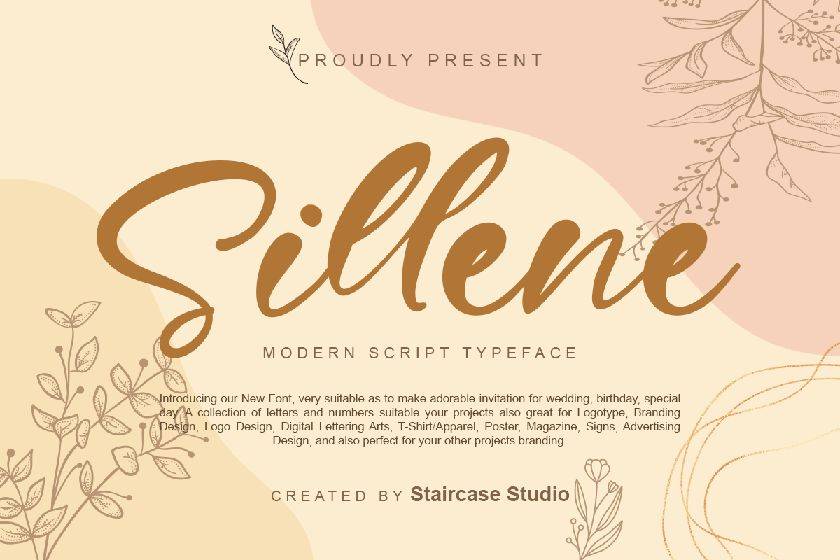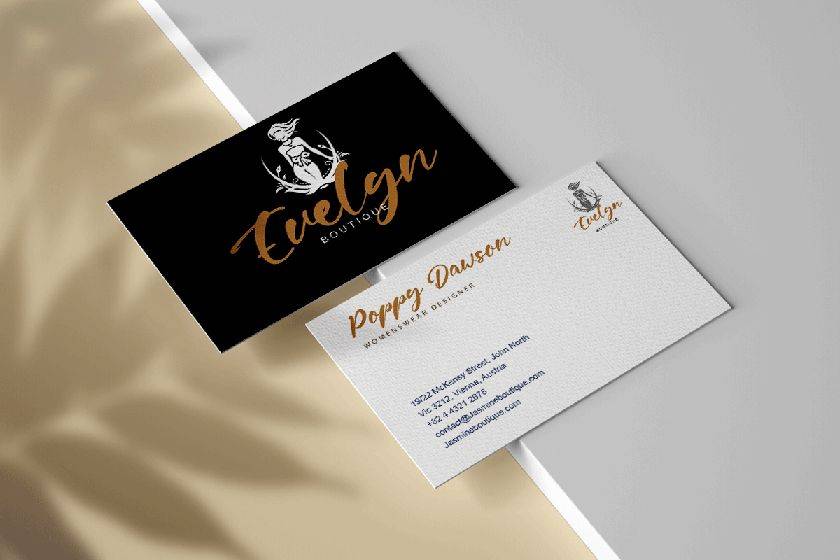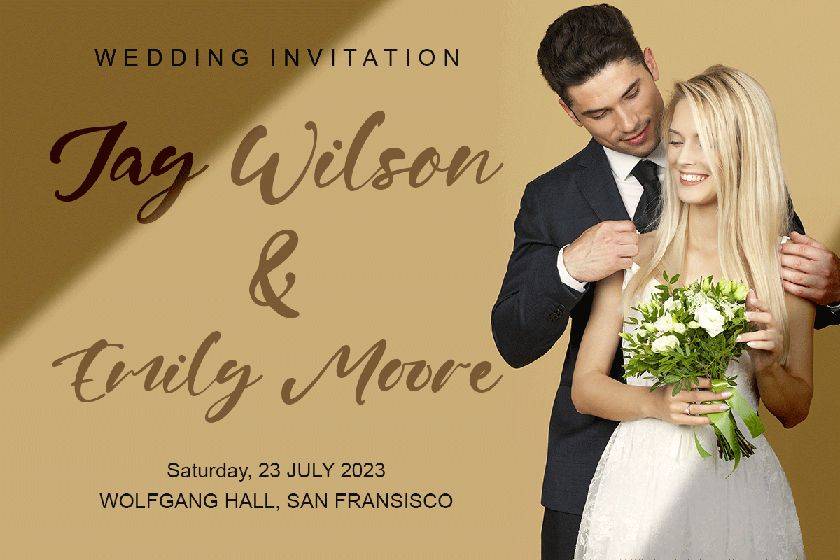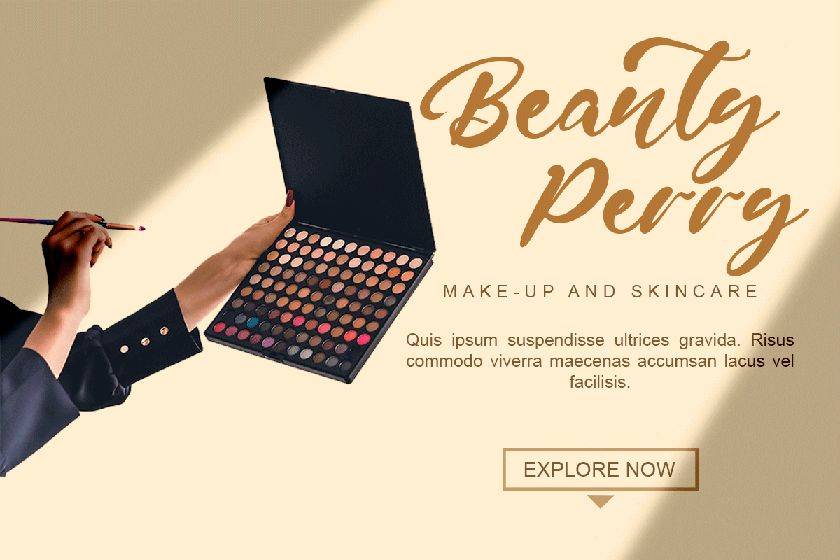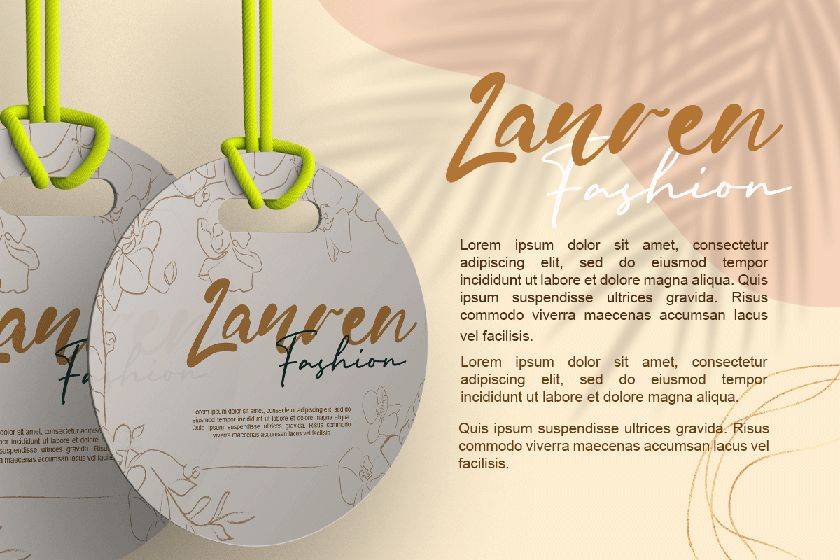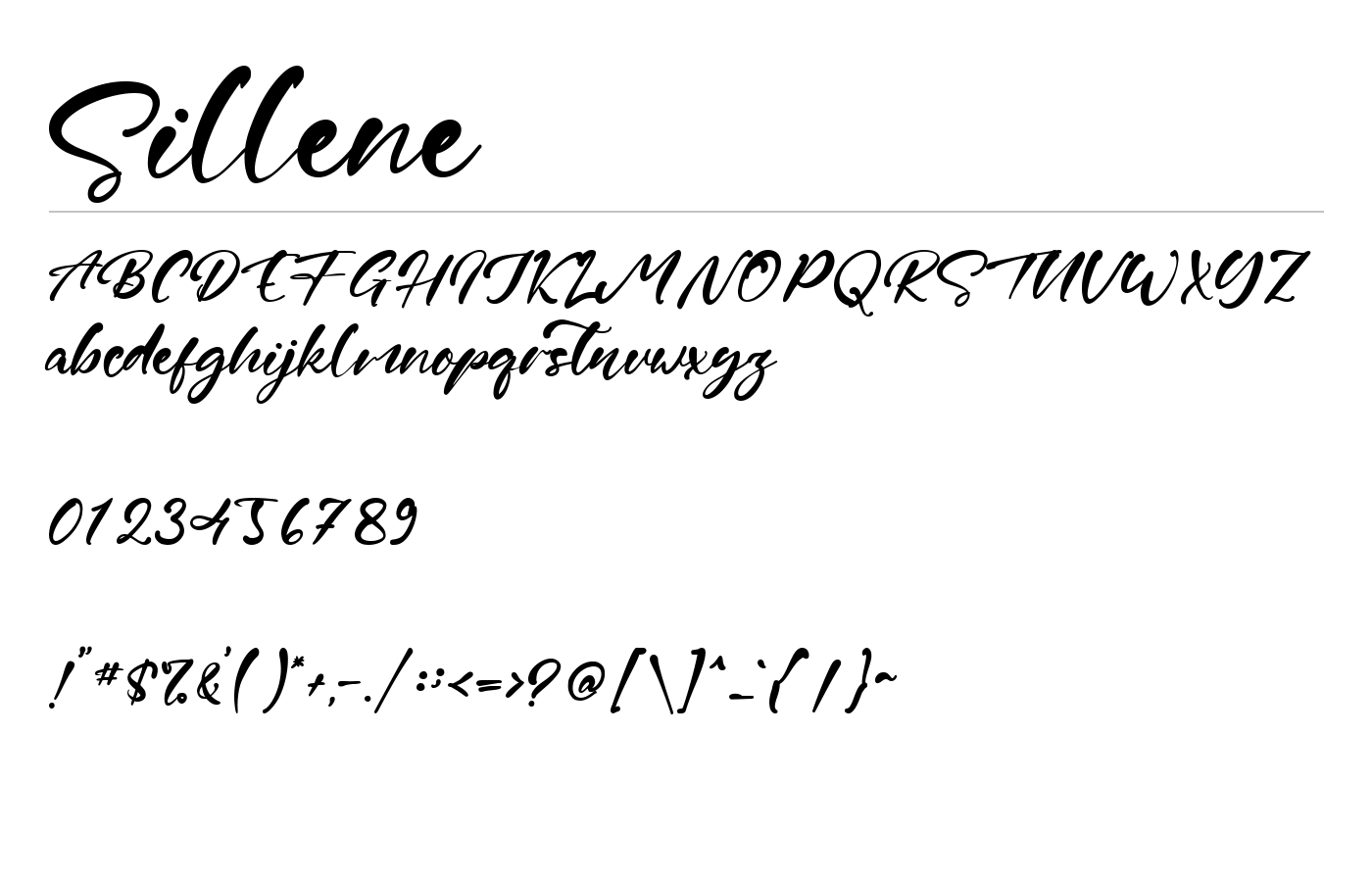
Sillene is an elegant script font with smooth, flowing strokes that give it a sophisticated and personal handwritten feel. Its medium weight and balanced contrast make it versatile for branding, invitations, and stylish headlines, adding a touch of charm and warmth to any design. This font works well for fashion, beauty, and creative projects that seek a graceful and approachable look.
Sillene Font
About Sillene Font
| Font family | Sillene Font |
| Release date | 2021-12-02 |
| Designer | Staircase Studio |